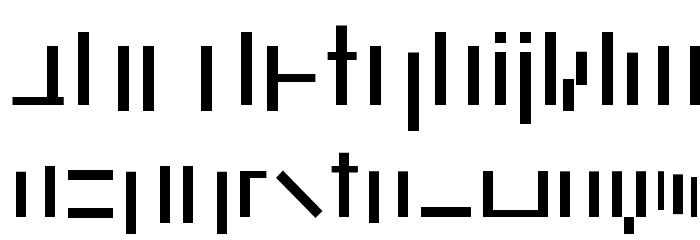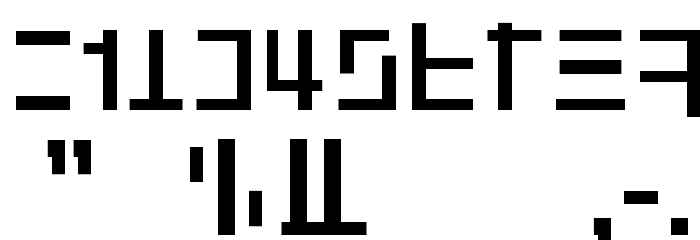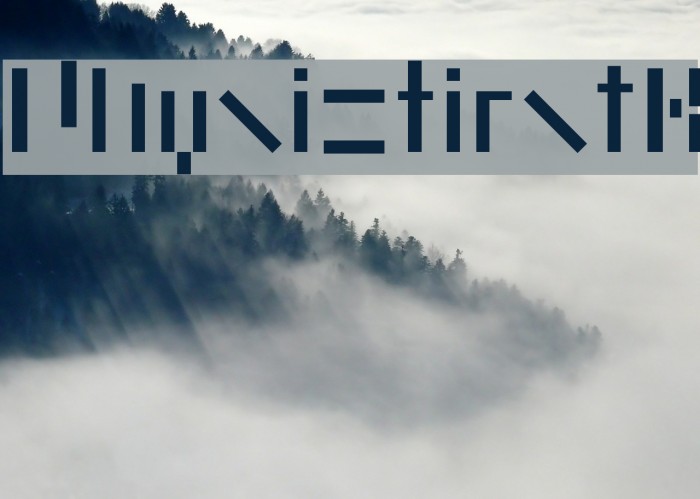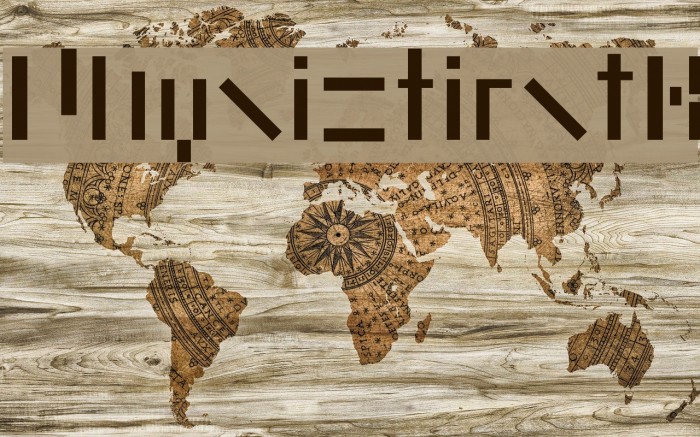
PhysiofirstE Font
This font features a highly geometric and futuristic design, characterized by its blocky and angular shapes. Each character is constructed with a series of straight lines and right angles, giving it a digital and modern appearance. The font lacks curves, which enhances its technical and mechanical feel. The uniformity in line thickness across all characters contributes to a low contrast, making it suitable for digital displays and tech-oriented projects. The spacing between characters is tight, which can create a compact and cohesive look when used in text. Overall, this font is ideal for projects that require a modern, cutting-edge aesthetic.
A geometric, futuristic font with blocky, angular shapes and low contrast.
- Proposed Projects: Ideal for tech branding, digital interfaces, video game design, and futuristic posters.
- Character Spacing: Tight
- Use Case: Logos, Headlines, Digital displays